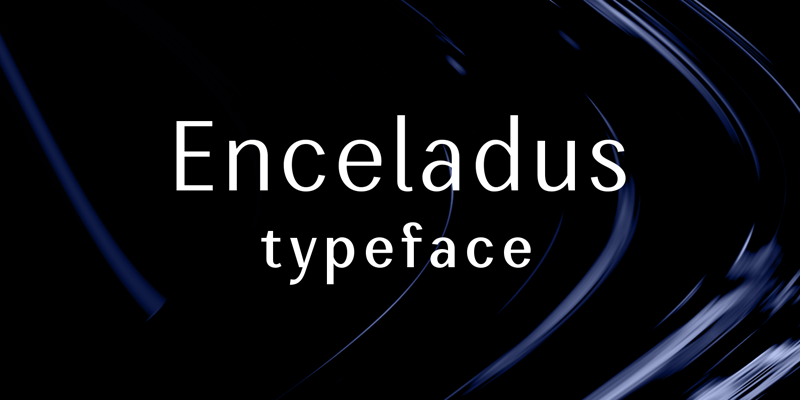
Enceladus - it is a semi-condensed humanistic grotesque with visible contrast. Supports extended Latin and Cyrillic. He has three styles: Regular, DemiBold, Bold. This fonts is free for personal use only purchase the license: fontbundles.net/pj154 crella.net/store/pj154/ Contact me if you have any questions pj154f@gmail.com Igor Kosinsky behance.net/Pj154 |